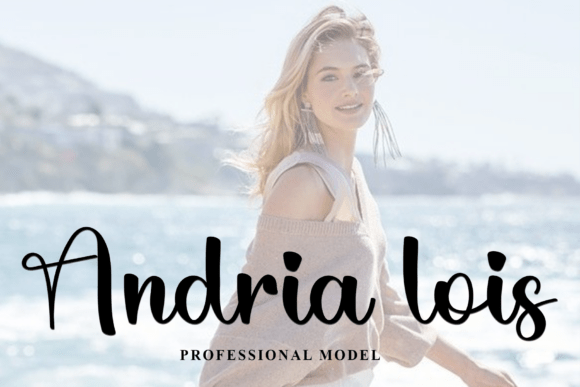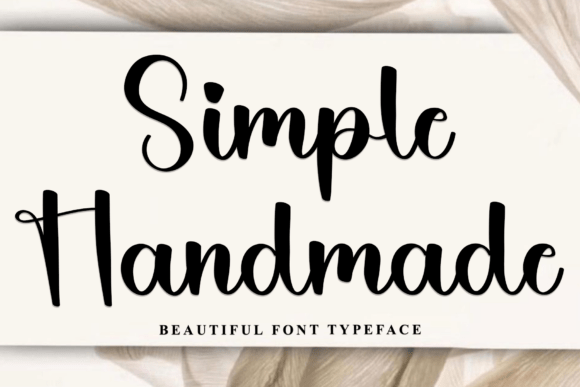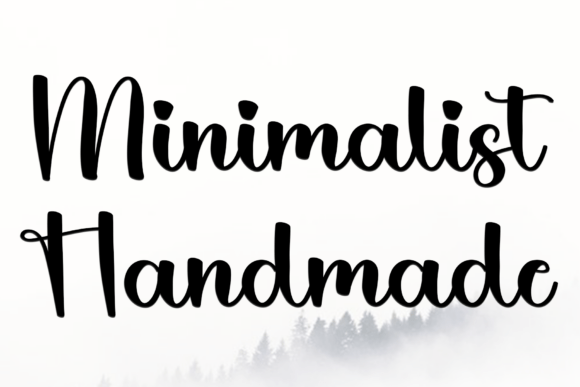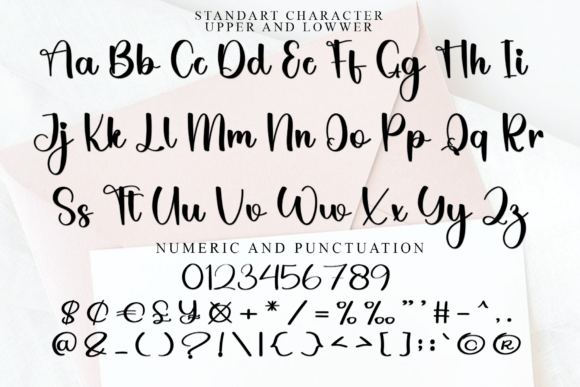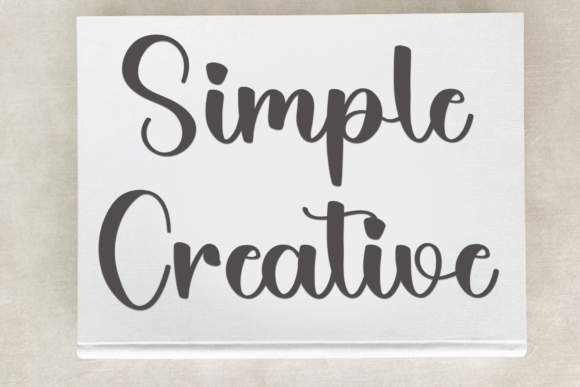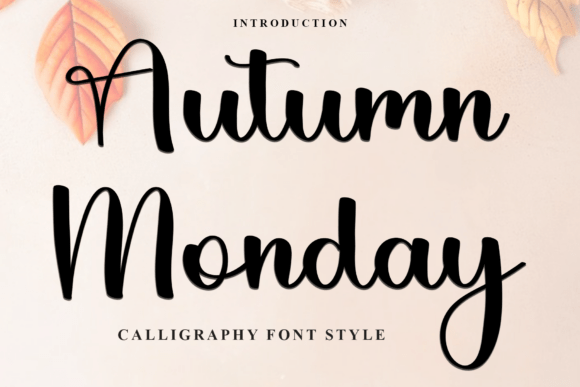
The Perfect Font for Your Creative Projects: Autumn Monday
As a designer, I’ve had my fair share of moments where I’ve struggled to find the right font for a project. I recall working on a design project for a client who wanted a warm and cozy feel, and I spent hours scouring the internet for the perfect font. That’s when I stumbled upon Autumn Monday, a beautiful and eye-catching font that has become a staple in my design toolkit.
A Personal Review of Autumn Monday
So, what makes Autumn Monday so special? Here are a few things I love about this font:
- ✨ Unique and distinctive strokes: Autumn Monday has a soft, unique touch that sets it apart from other fonts.
- ✅ Versatile and meaningful: The font’s distinctive strokes give it a special character, making it perfect for a wide range of design projects.
- 🌟 Wide range of characters: Autumn Monday comes with various characters, making it ideal for design projects, crafts, and other creative works.
Of course, no font is perfect, and Autumn Monday has a few small quirks:
- 🤔 Limited use in very formal designs: While Autumn Monday is versatile, it may not be the best fit for very formal or traditional designs.
- ⚠️ Some characters may require manual kerning: As with any font, some characters may require manual kerning to achieve the perfect look.
Some of the OpenType features you can explore with Autumn Monday include:
- Stylistic alternates: Autumn Monday comes with a range of stylistic alternates that can add a unique touch to your designs.
- Glyphs: The font includes a range of glyphs that can be used to add decorative elements to your designs.
The Story Behind Autumn Monday
Autumn Monday was designed with the intention of creating a font that would capture the warmth and coziness of the autumn season. The designer wanted to create a font that would be perfect for designers, crafters, and creative hobbyists who want to add a touch of personality to their designs.
| What is Autumn Monday? | Autumn Monday is a beautiful and eye-catching font designed with a soft, unique touch. |